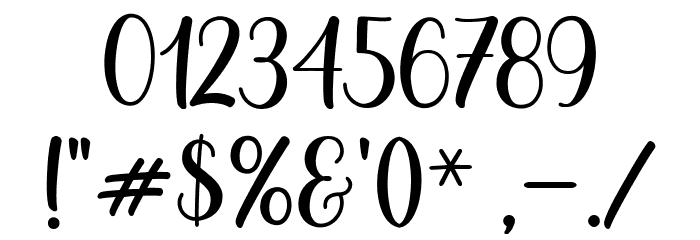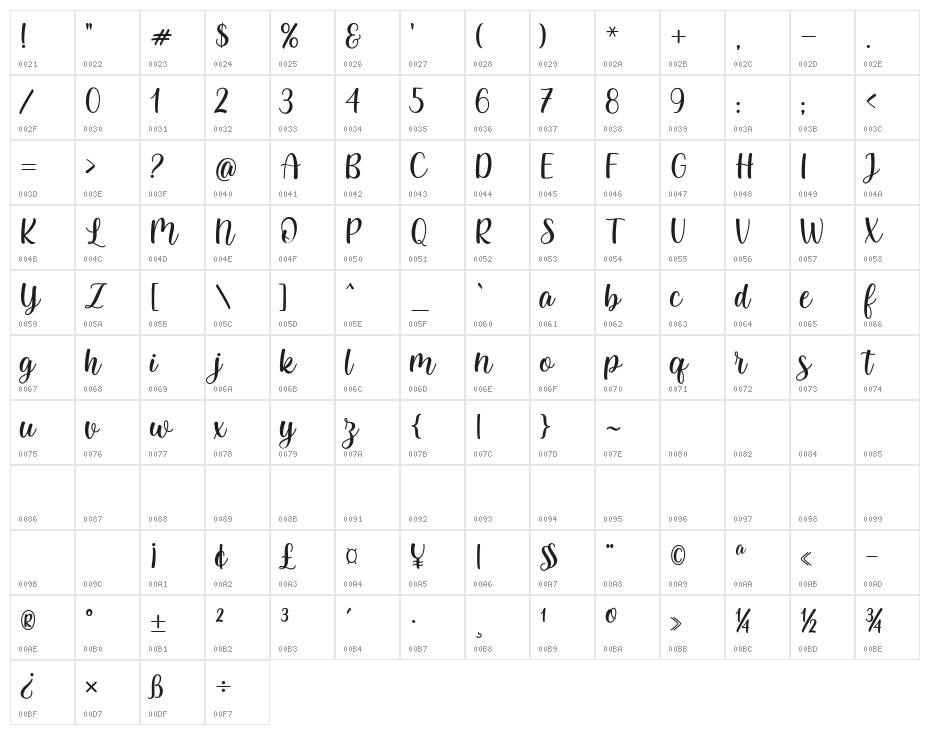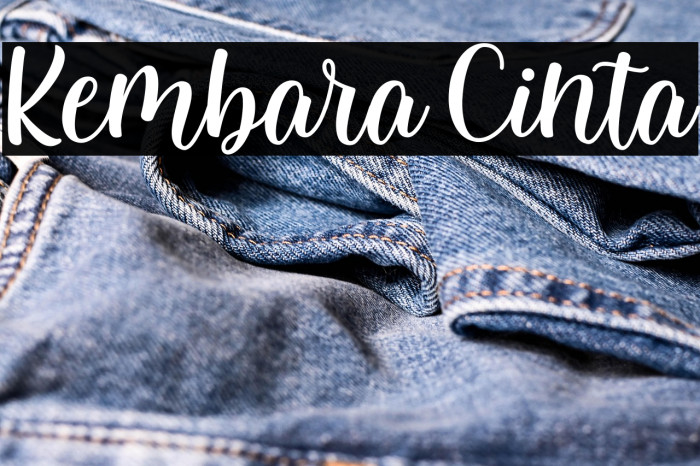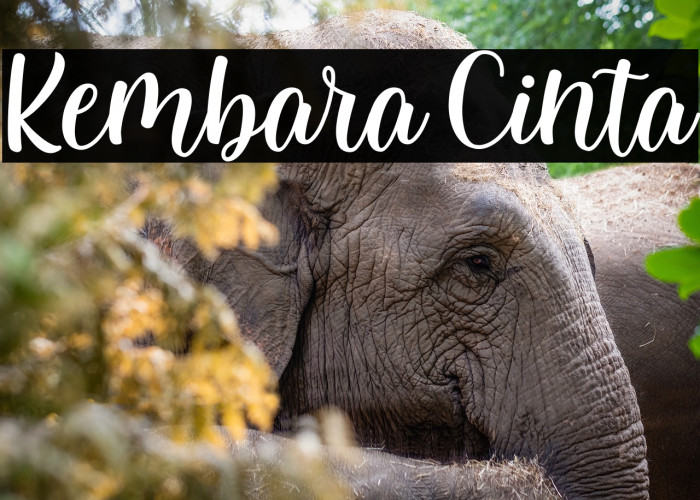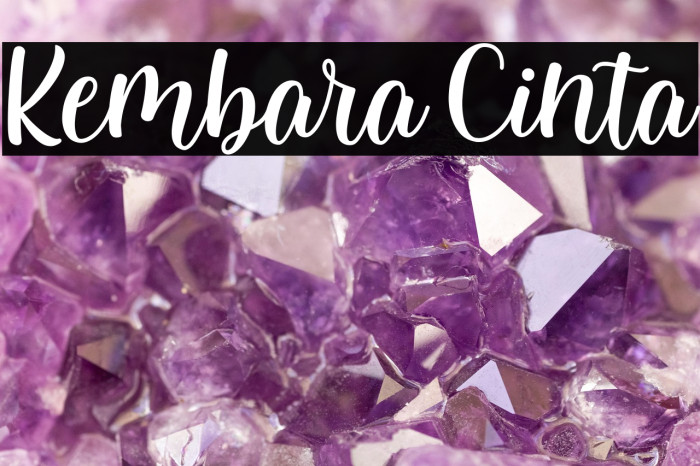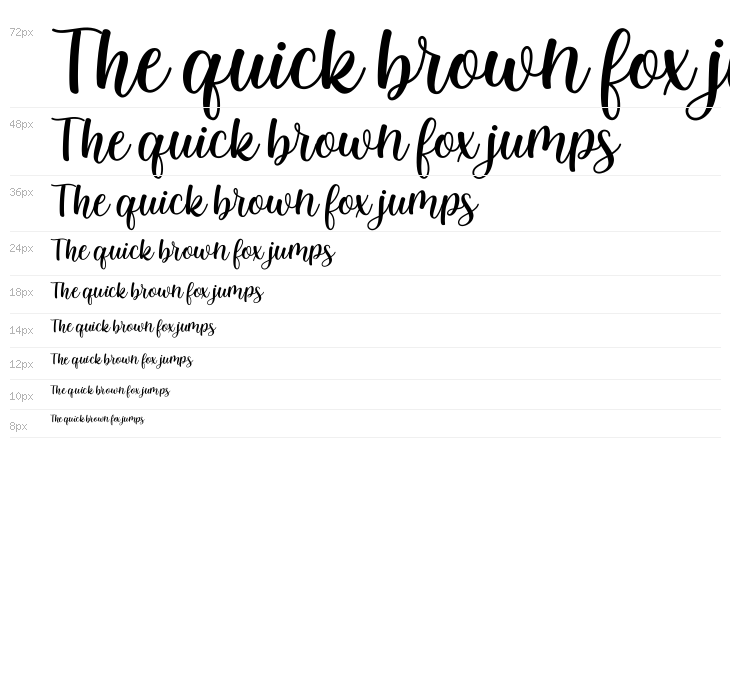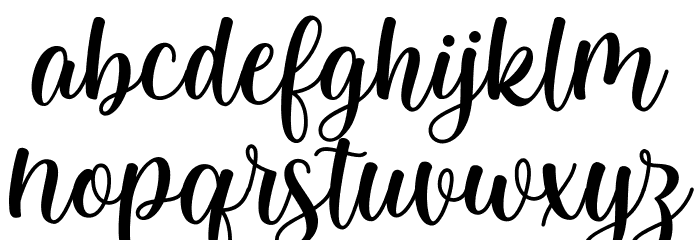
Kembara Cinta Font
Kembara Cinta Description
This font features a lively and flowing script style, characterized by its smooth, cursive strokes and elegant curves. The uppercase letters are bold and expressive, while the lowercase letters maintain a consistent fluidity, creating a harmonious balance. The numerals are clear and distinct, complementing the overall aesthetic. Special characters are creatively integrated, enhancing the font's versatility. Its playful yet sophisticated appearance makes it suitable for a variety of design applications.
| Use Case | Logos, Invitations, Decorative Text |
| Proposed Projects | Ideal for wedding invitations, greeting cards, branding projects, and decorative signage. |